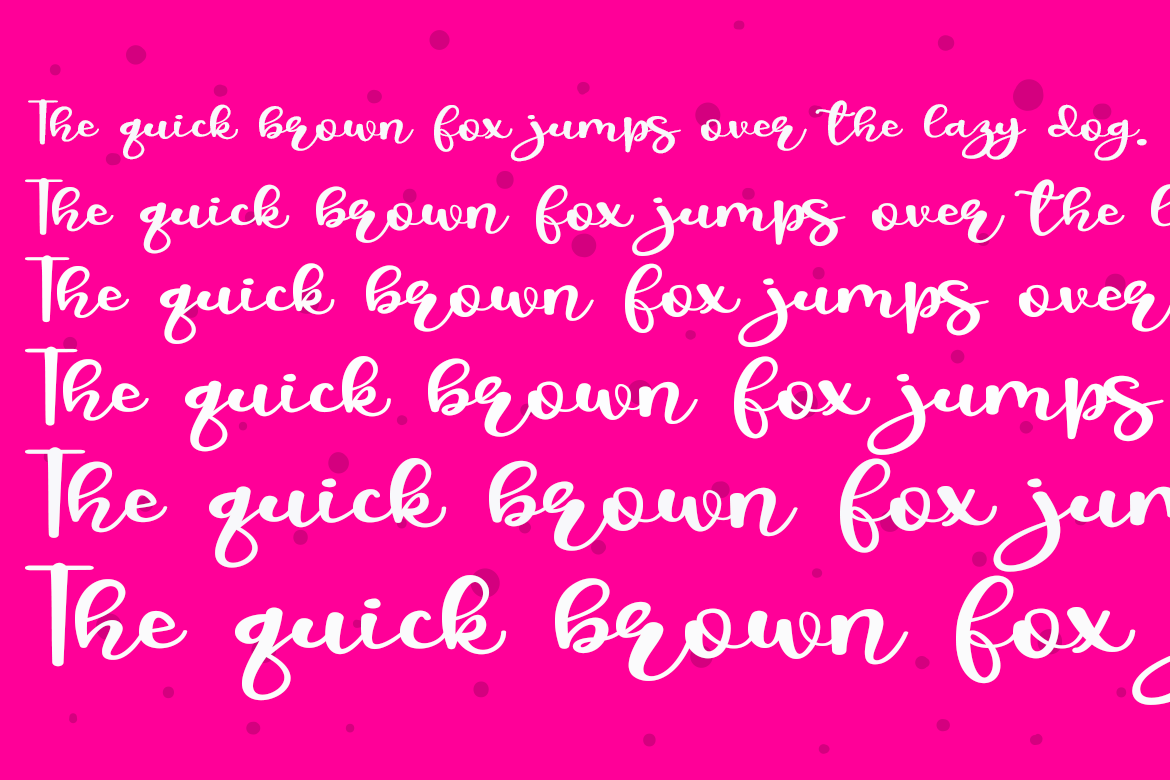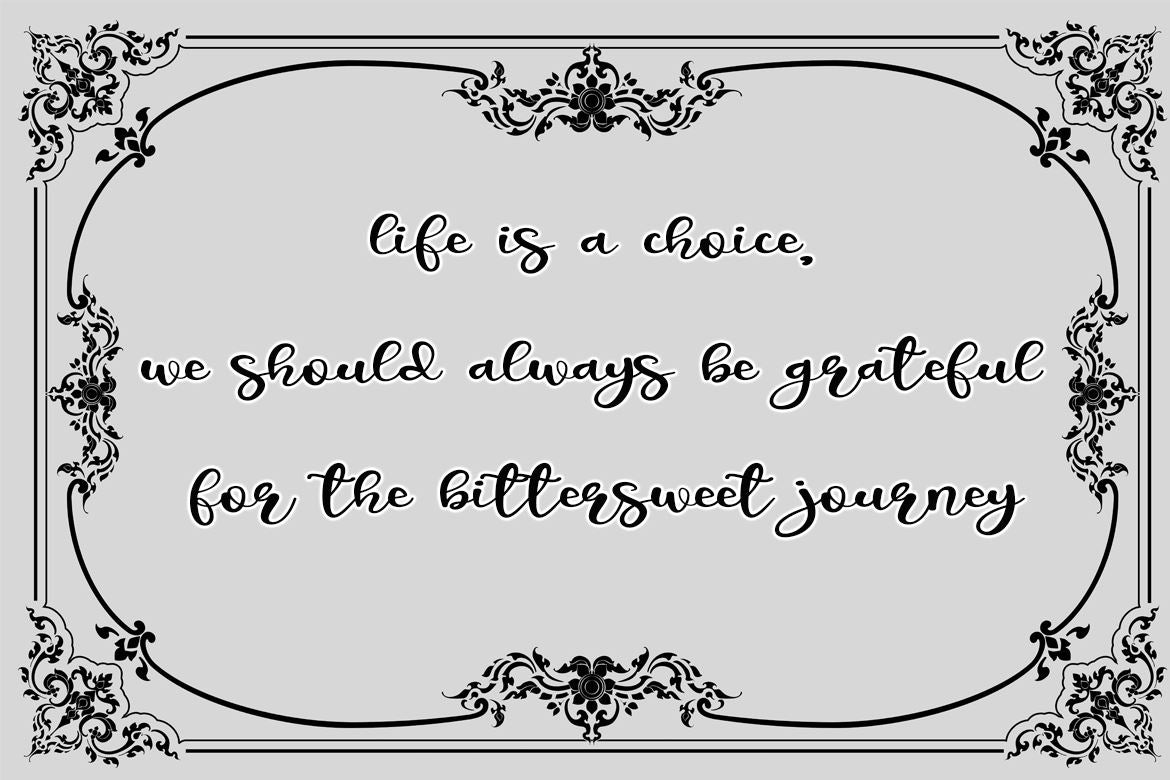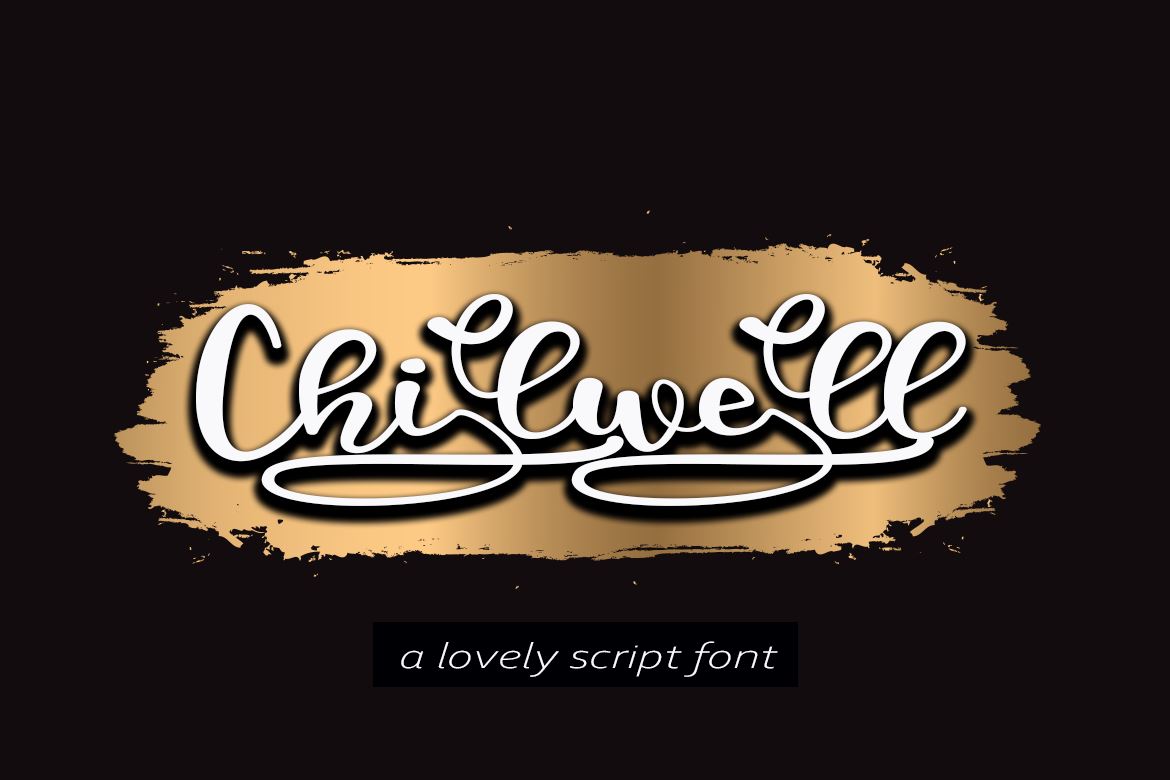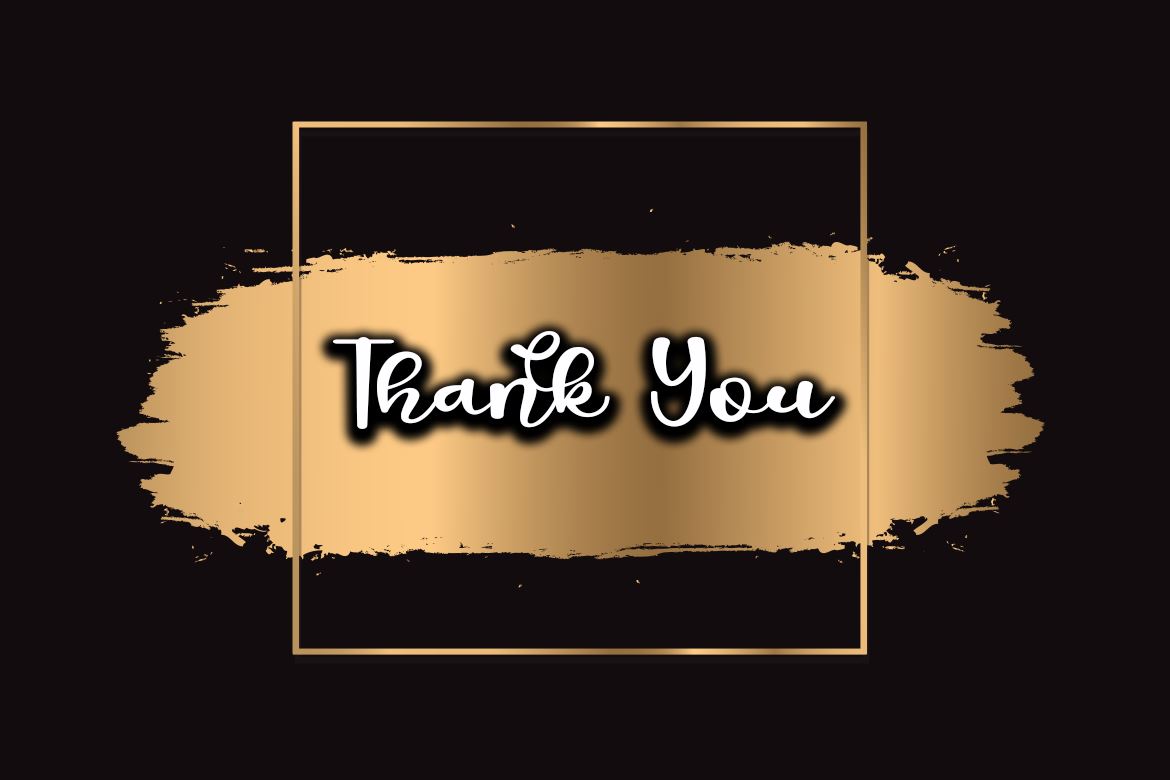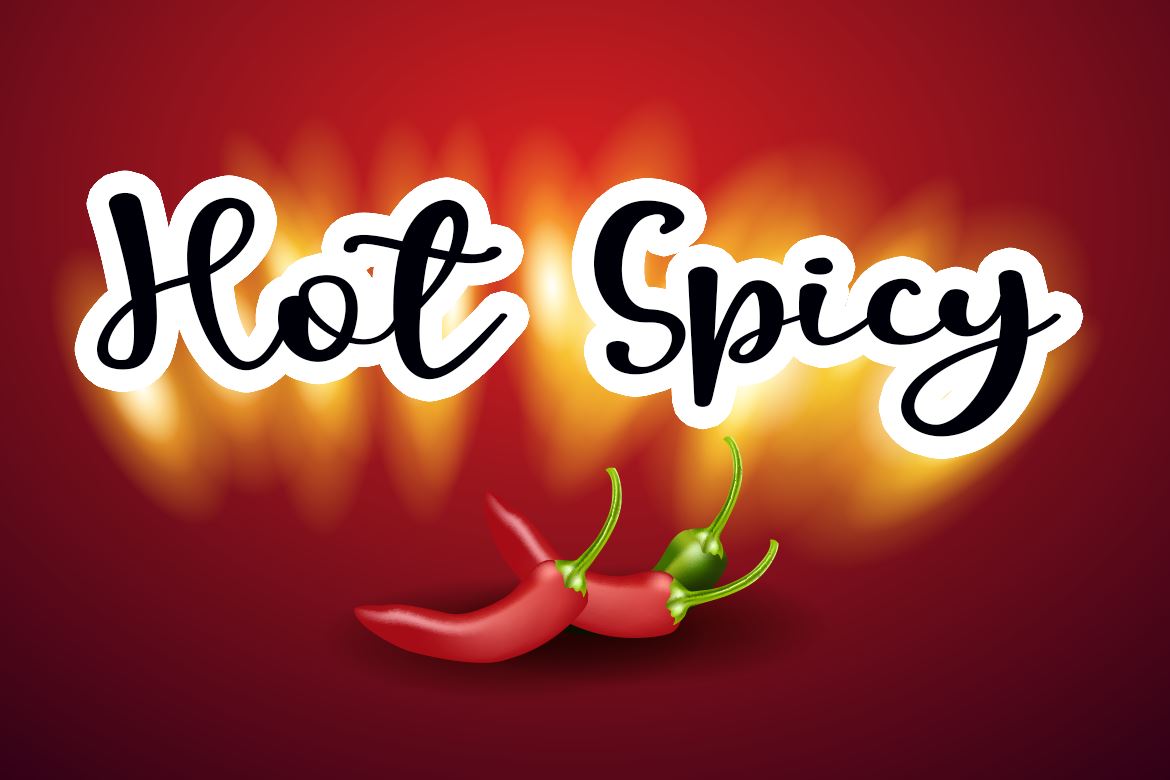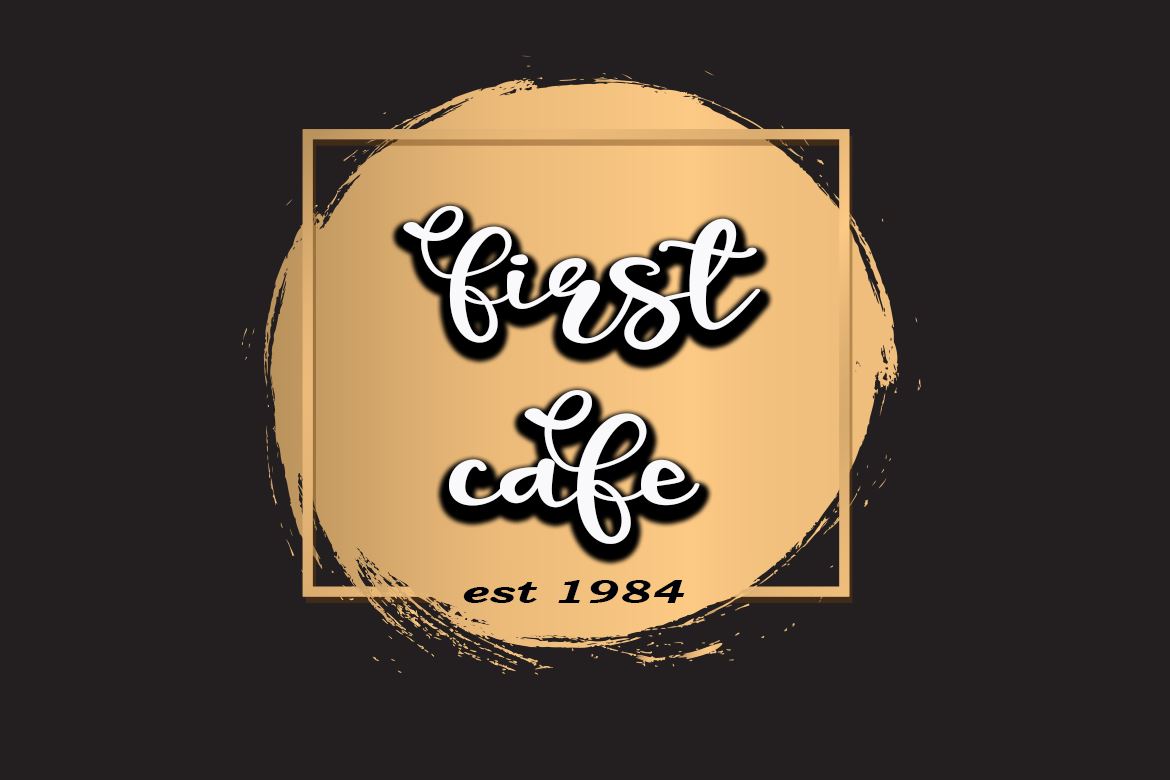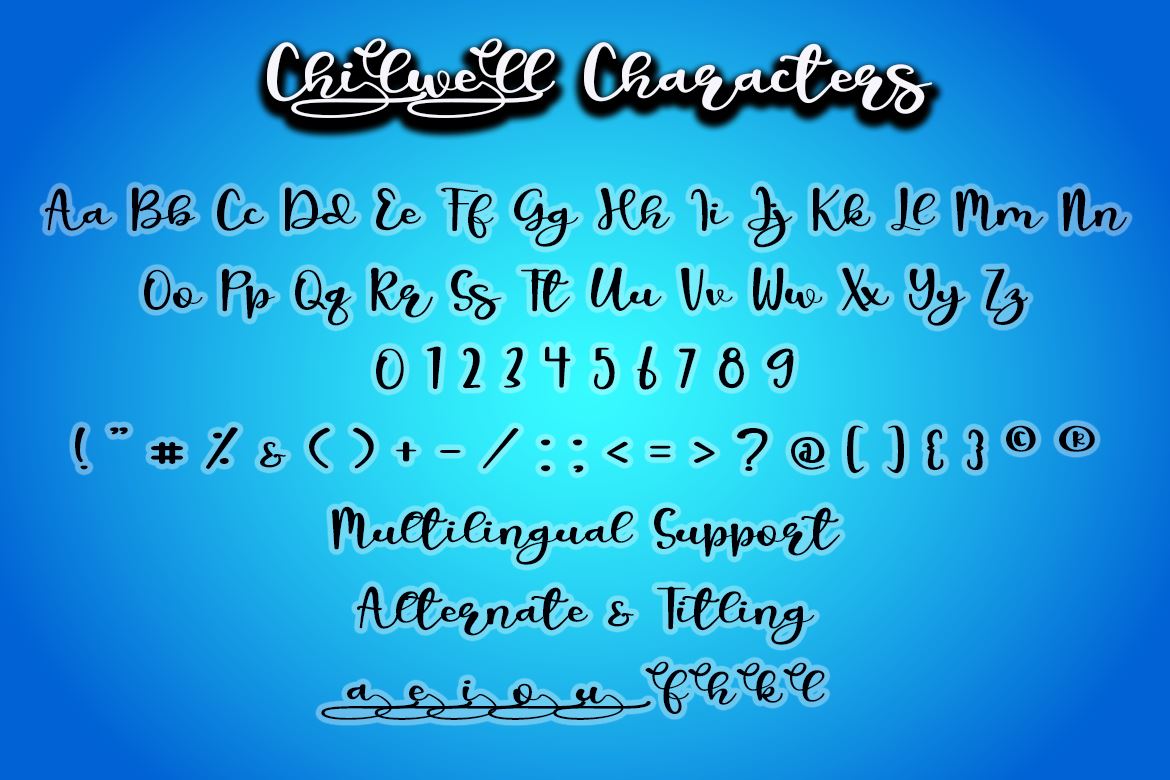
Chilwell
About Chilwell
Hey..welcome to my shop..! Chilwell is a very distinct, refined and timeless handwriting font. It looks amazing on wedding invitations, thank you cards, quotes, greeting cards, logos, business cards and any other design that needs a handwritten touch. Files include : – Chilwell OTF – Chilwell TTF I hope you enjoy with this font. And thanks for your support.